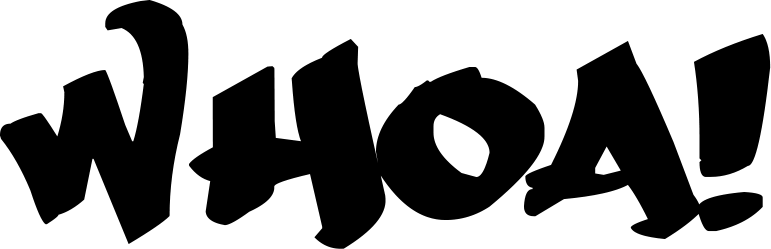
Whoa! Font
Whoa! font is one of the marker fonts usually used to design sports brands and the titles and logos of clubs. You can also find out that this font is similar to Japanese fonts and is one of the best options for reviewing…
Whoa! font is one of the marker fonts usually used to design sports brands and the titles and logos of clubs. You can also find out that this font is similar to Japanese fonts and is one of the best options for reviewing Japanese movies. Unfortunately, this font only has uppercase letters and does not support lowercase letters and numbers, so you can use it to design T-shirts and magazine titles.
This font is named after the Swedish hiphop community Whoa (www.whoa.nu).